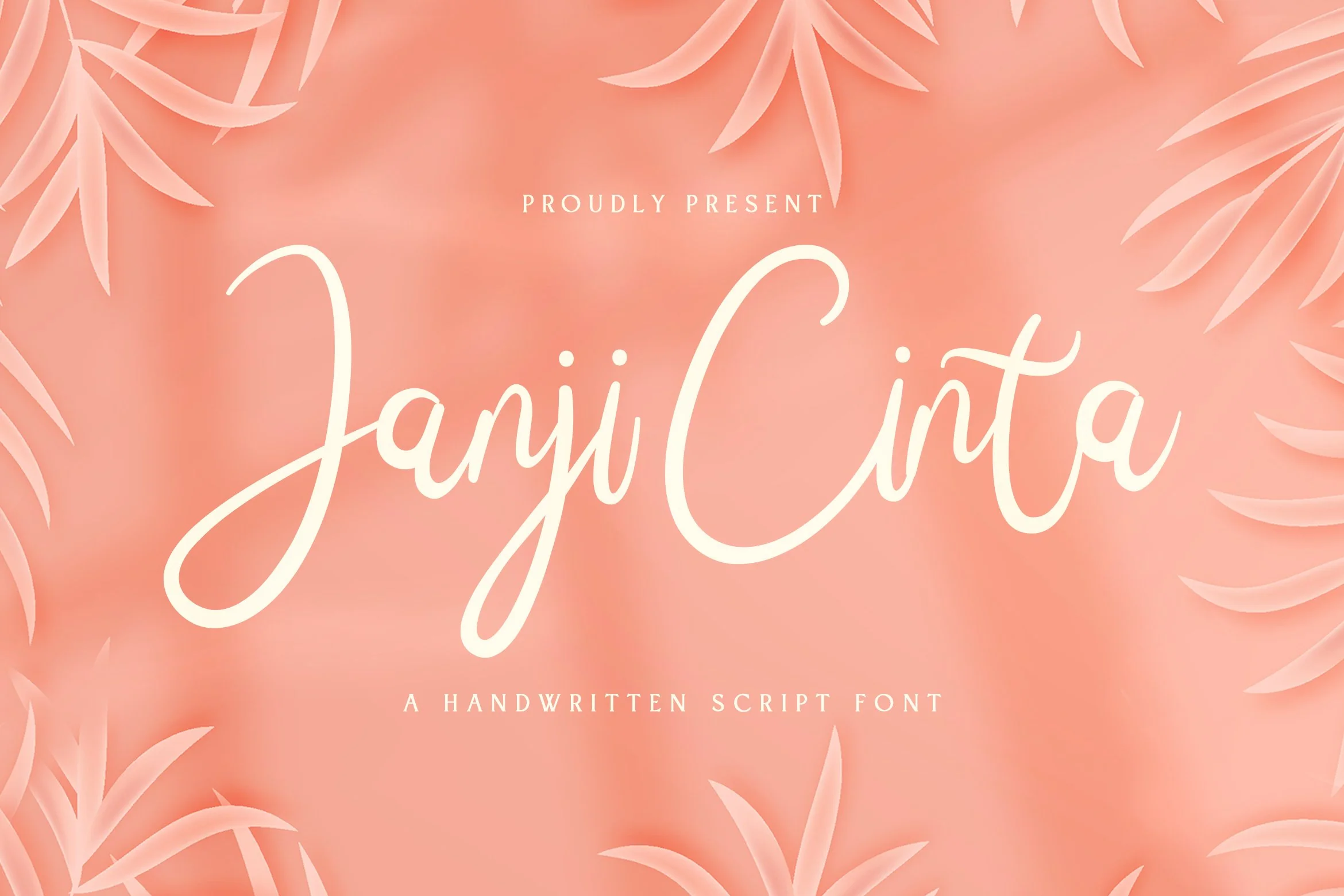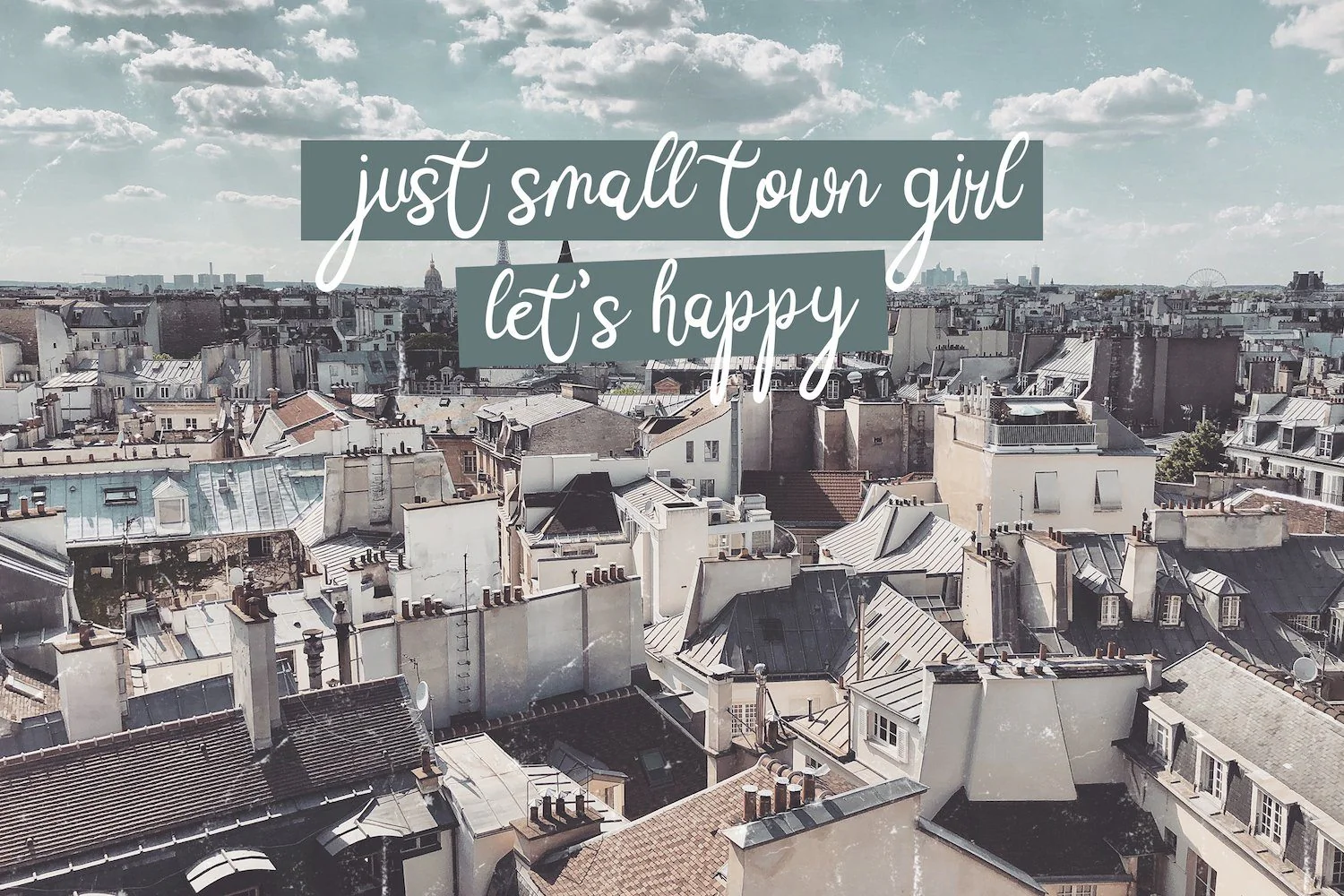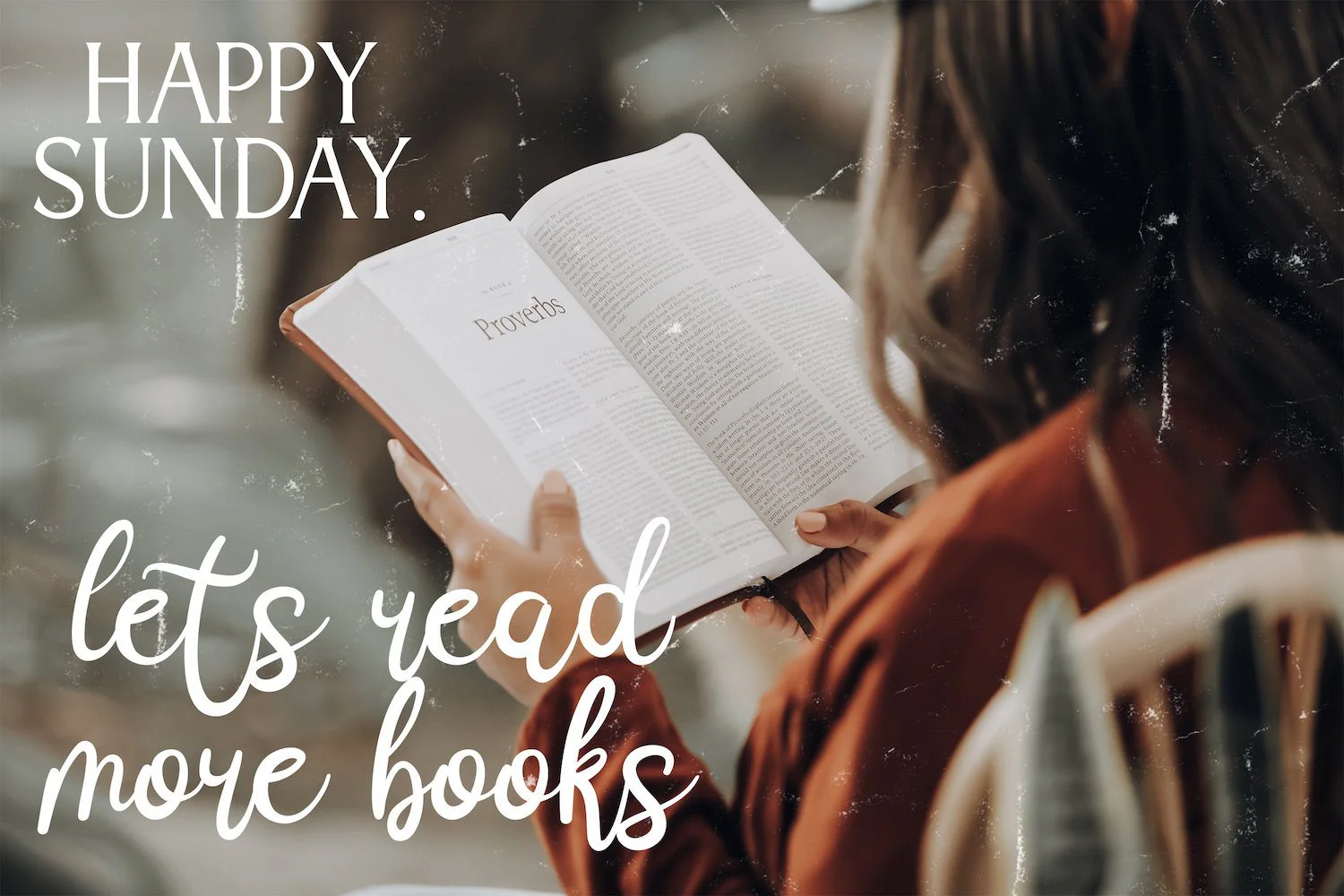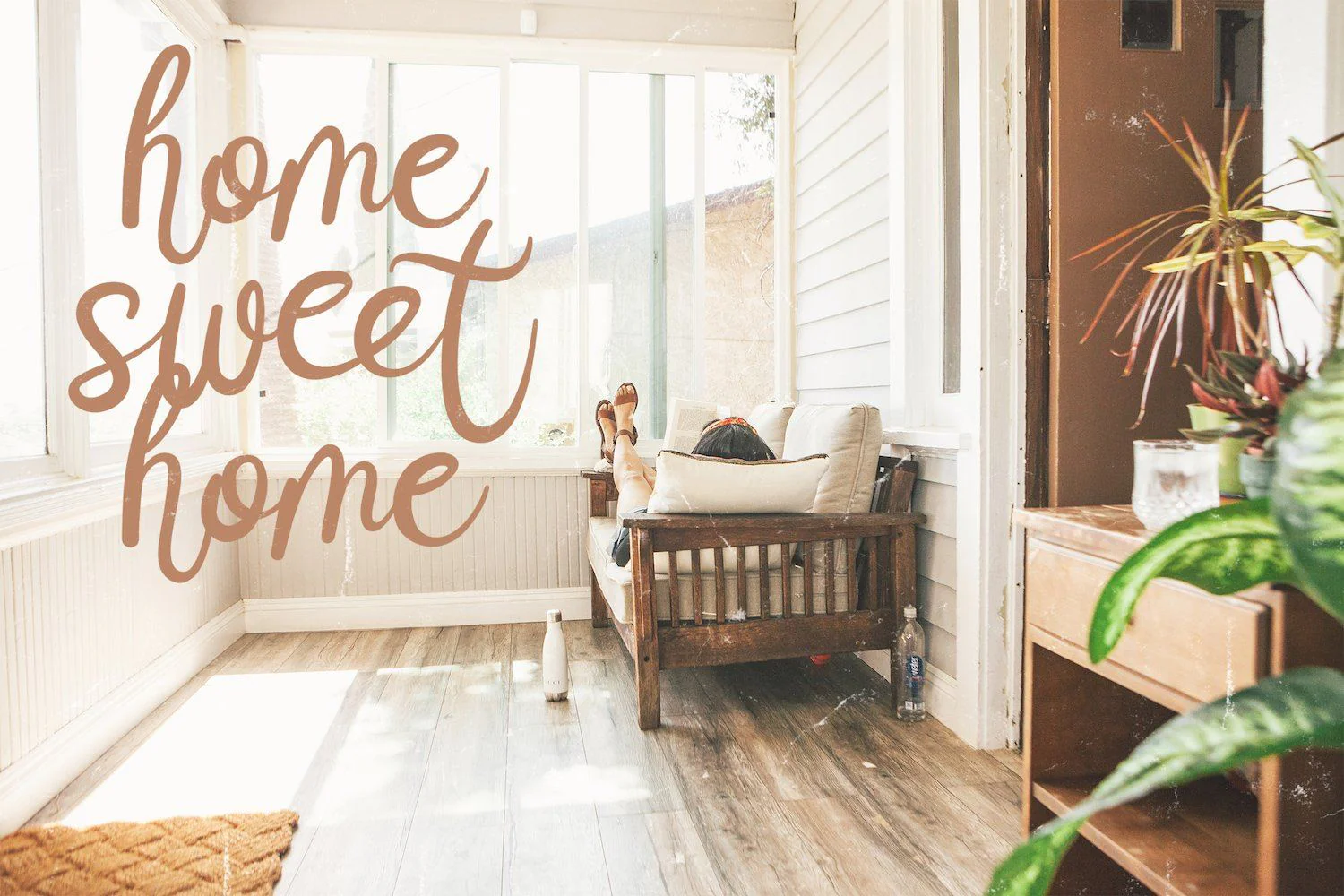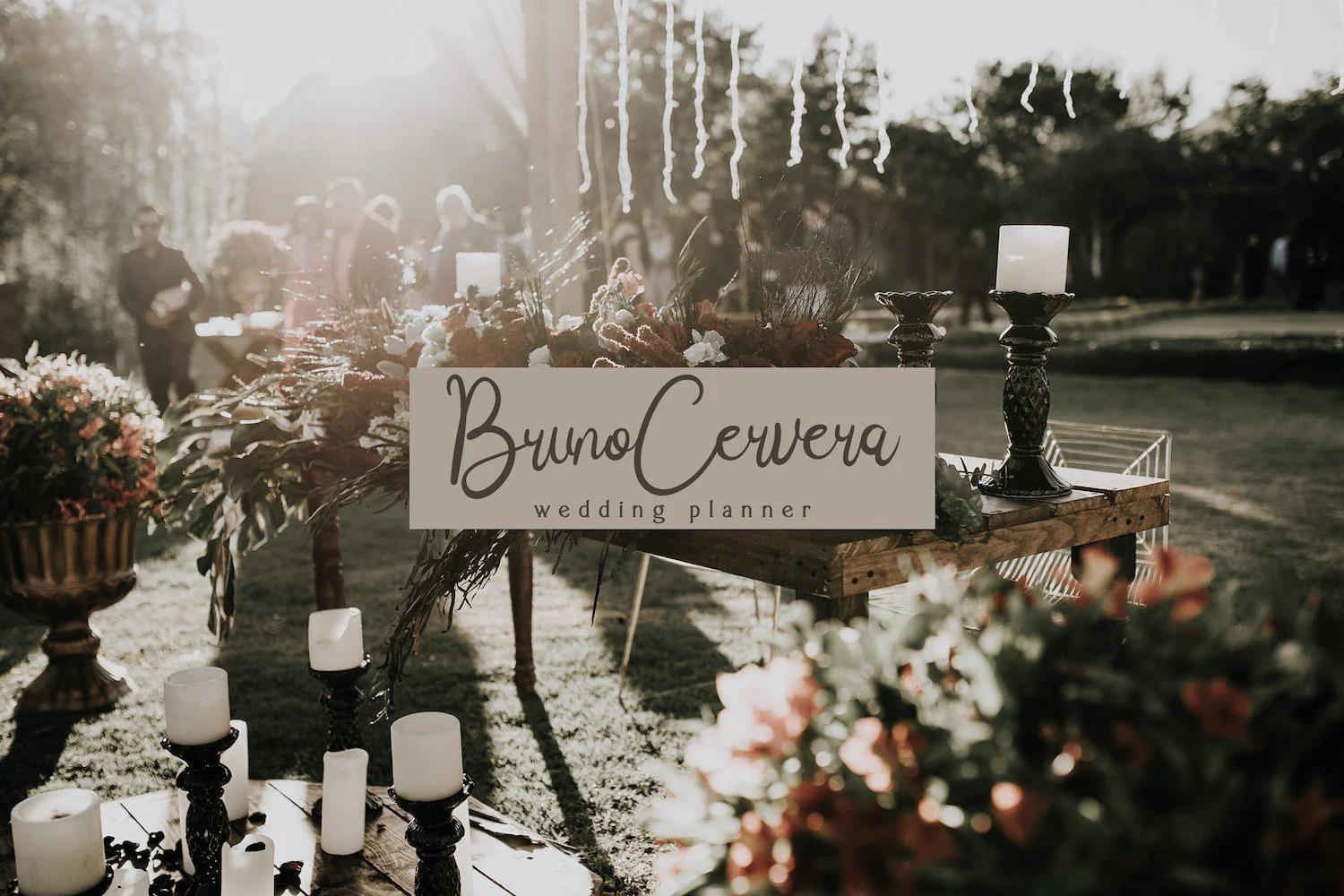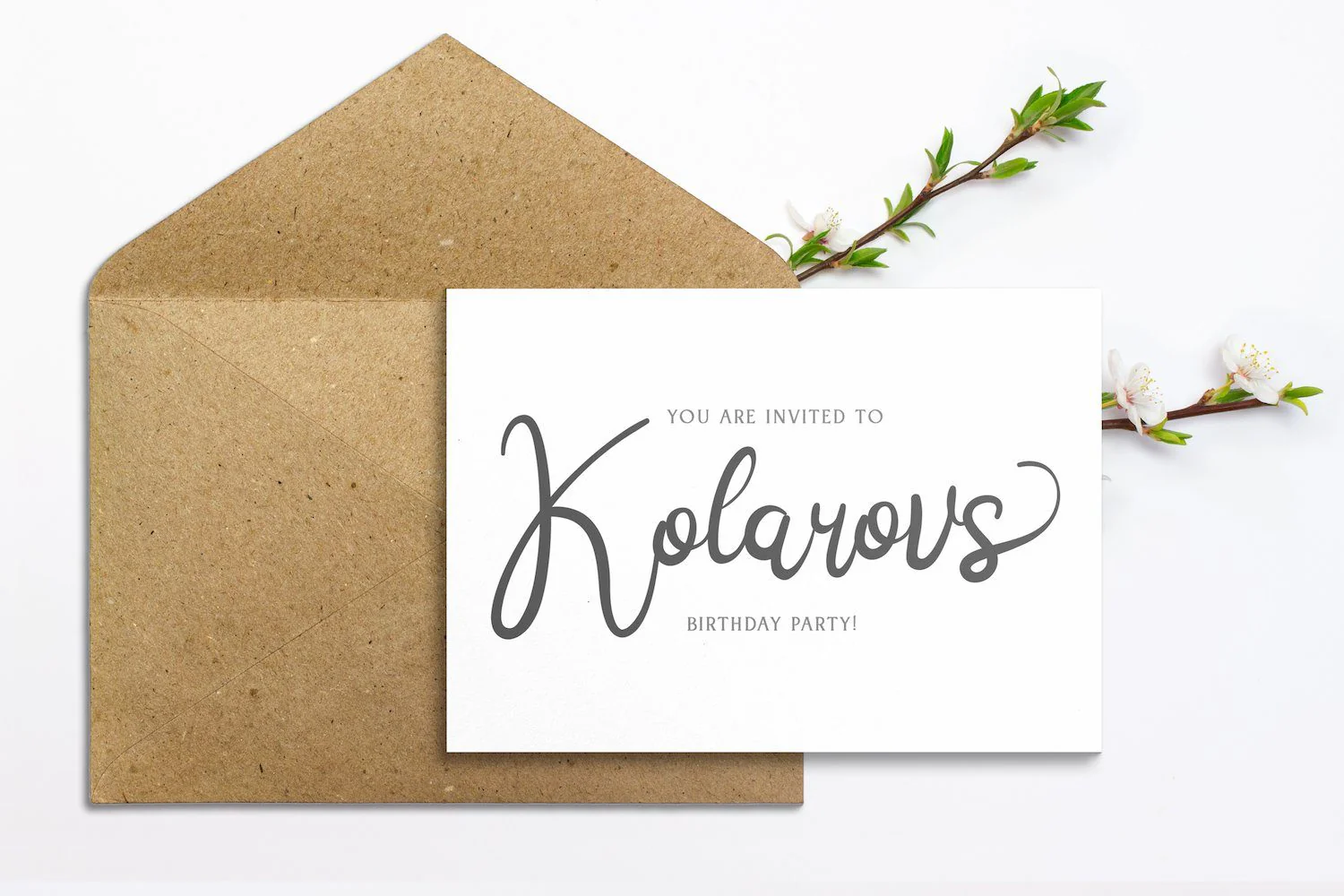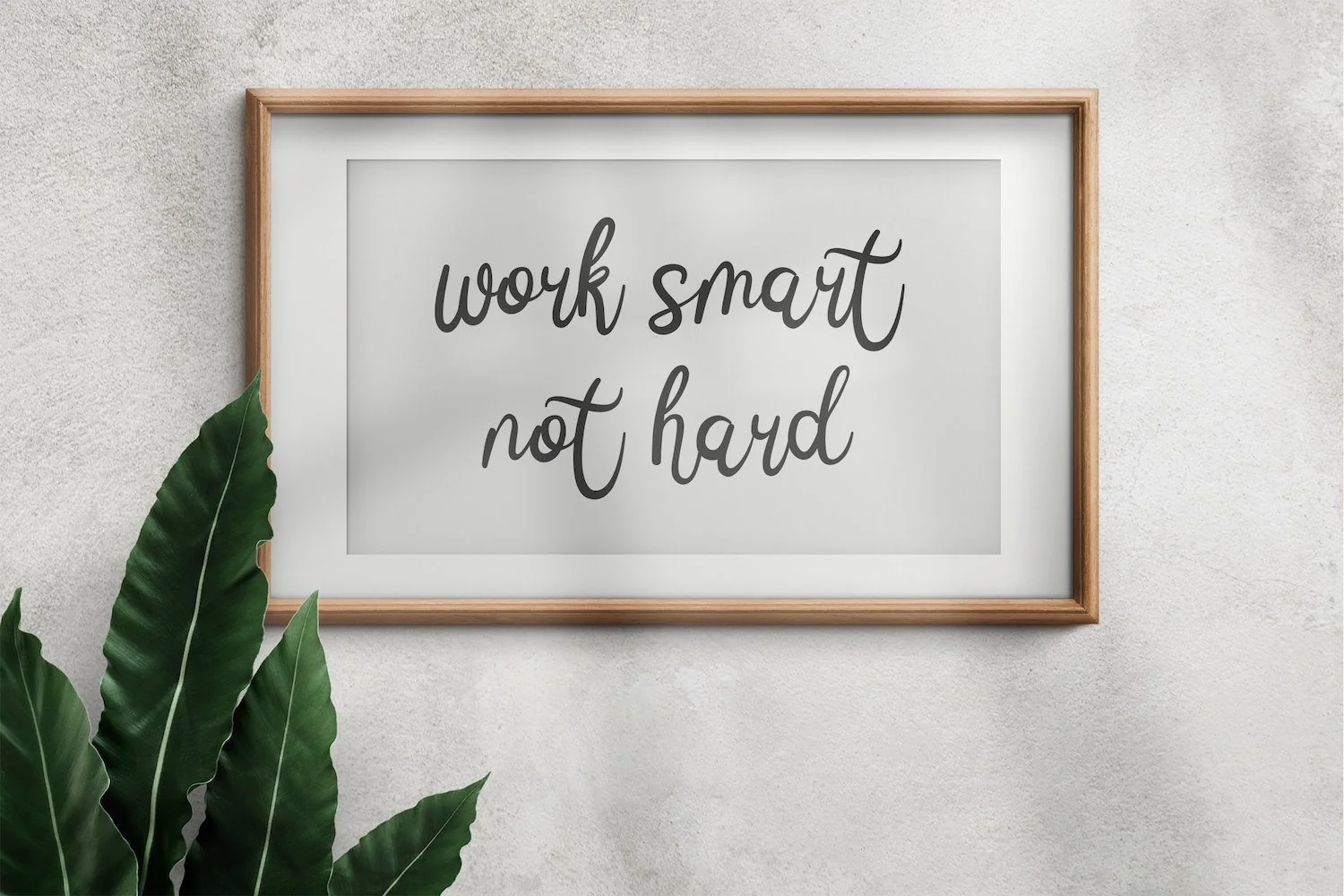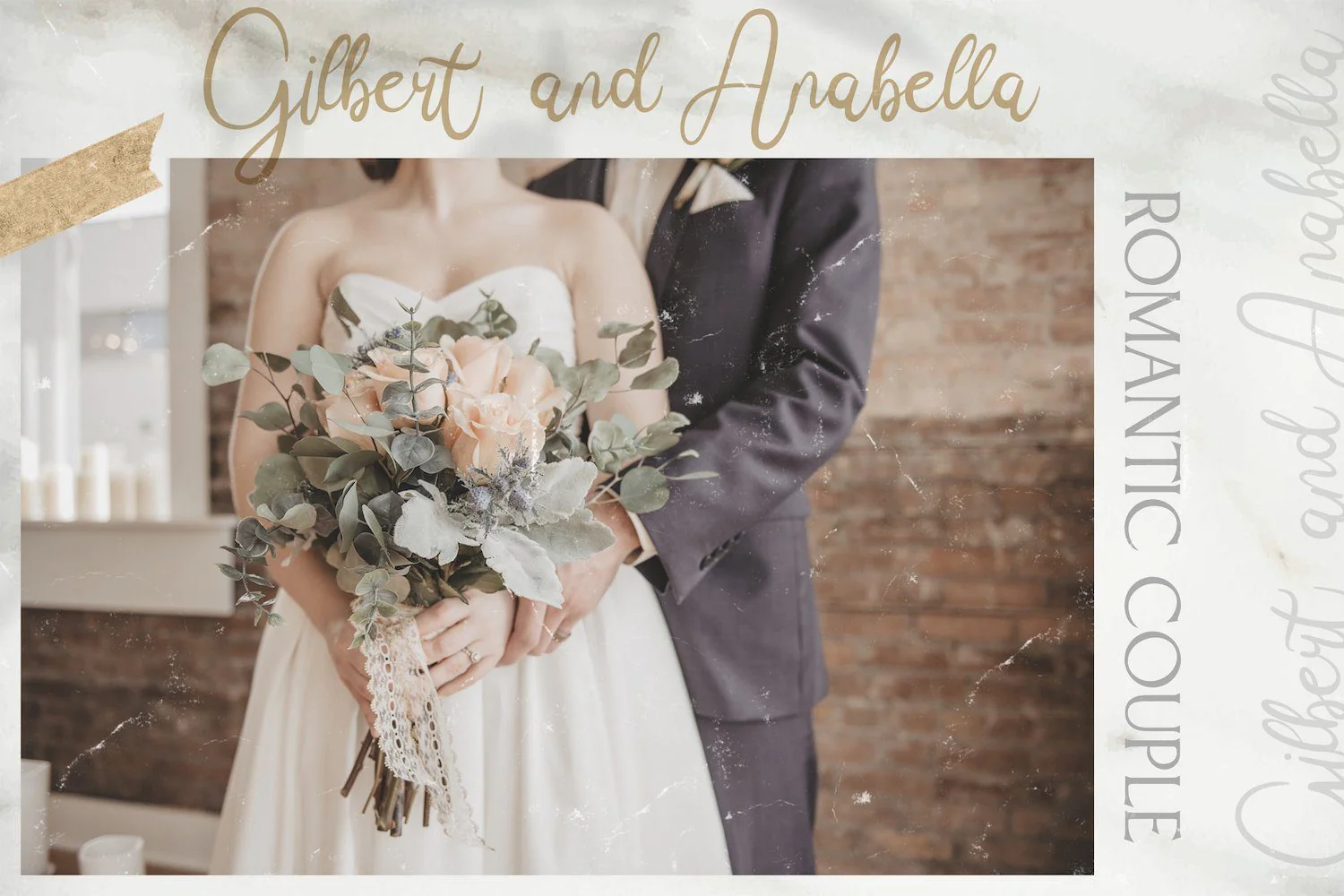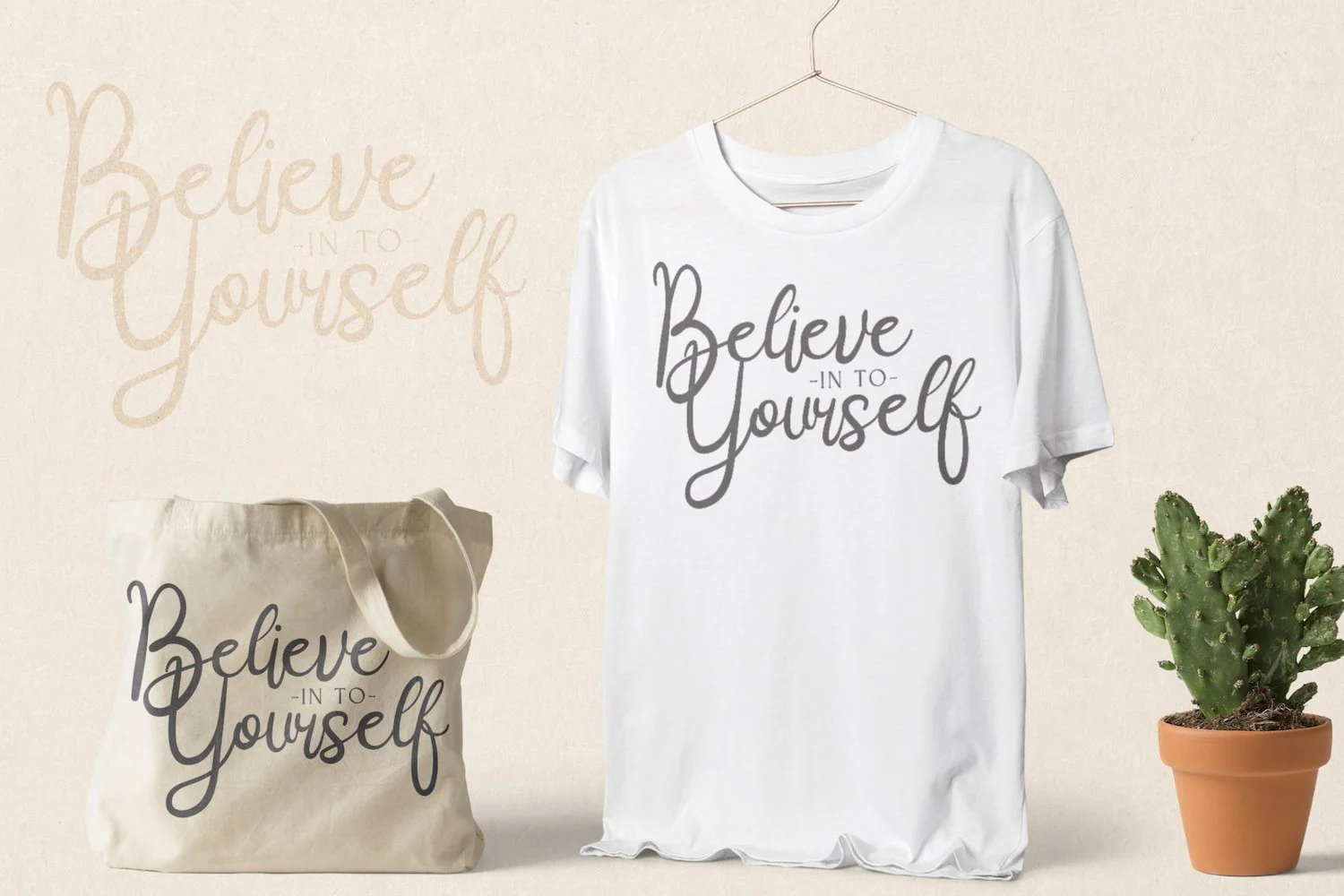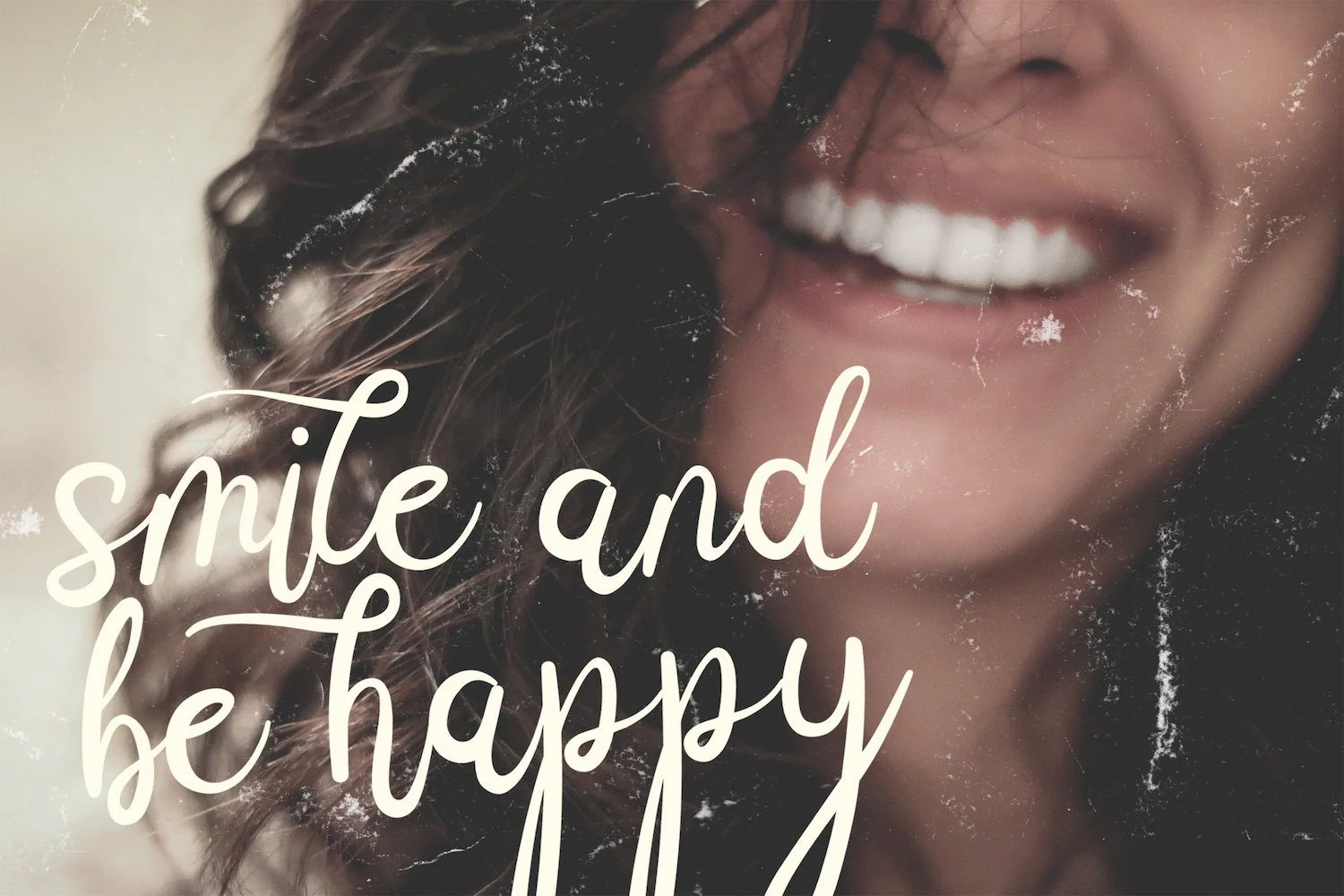
Janji Cinta - Handwritten Font
Introducing Janji Cinta - Handwritten Font
Janji Cinta is a lovely handwritten font, created with the help of a beautiful brush pen. Fall in love with its incredibly versatile style and use it to create gorgeous wedding invitations, beautiful stationary art, eye-catching social media posts, and much more!
Introducing Janji Cinta - Handwritten Font
Janji Cinta is a lovely handwritten font, created with the help of a beautiful brush pen. Fall in love with its incredibly versatile style and use it to create gorgeous wedding invitations, beautiful stationary art, eye-catching social media posts, and much more!